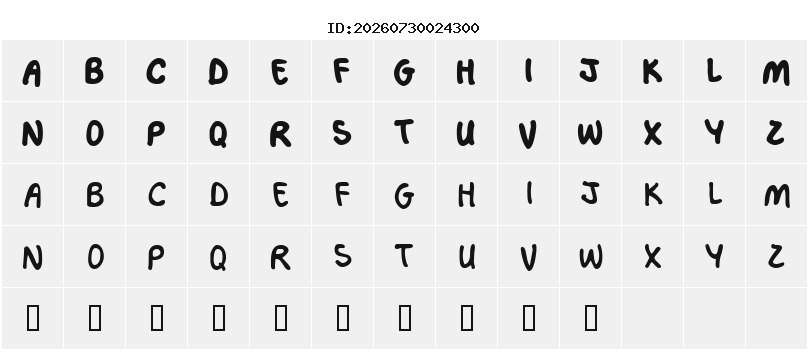
• Font Name: Katherine
• Full Font Name: Katherine
About Katherine.ttf
Katherine.ttf is a modern, elegant sans-serif font designed for ultimate readability and visual harmony. Perfect for branding, headlines, web design, and print materials.